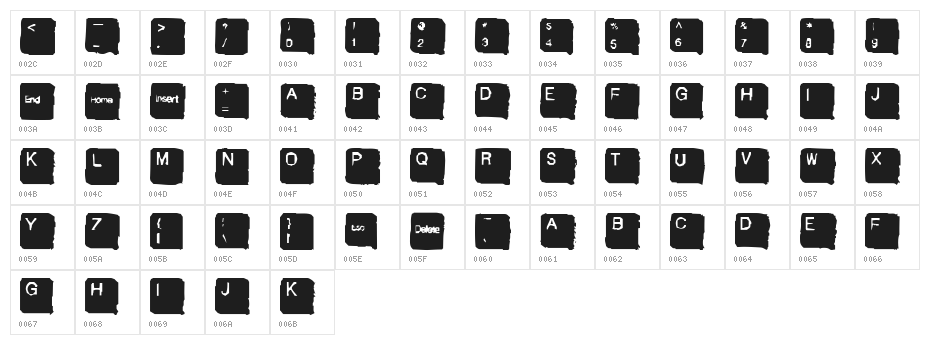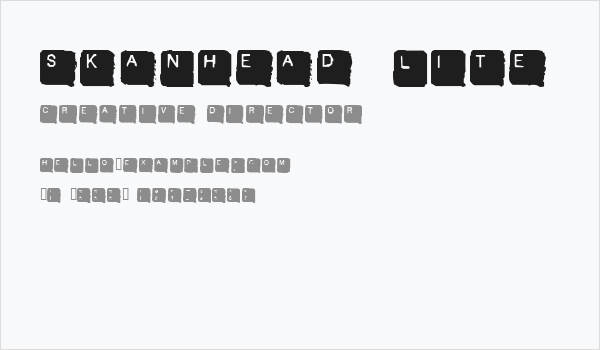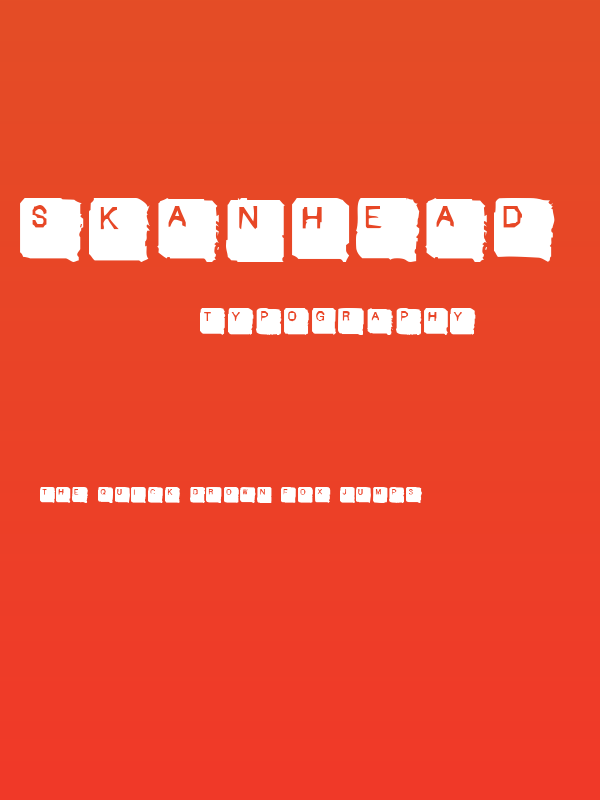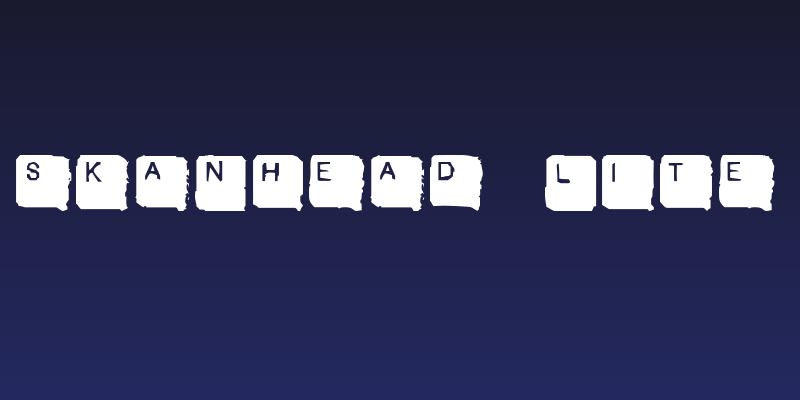
SkanHead Lite Font
SkanHead Lite Description
This font features a bold, distressed style with a grunge aesthetic. Each character is enclosed in a square, giving it a unique, stamped appearance. The letters and numbers are uniformly bold, with rough edges and a slightly uneven texture, adding to the overall rugged look. The special characters maintain this distressed style, ensuring consistency across the font. This design is perfect for projects that require a strong, impactful visual presence with a touch of edginess.
Overall StyleGrunge, Urban, Distressed
Proposed ProjectsIdeal for posters, album covers, urban-themed designs, and branding that requires a bold statement.